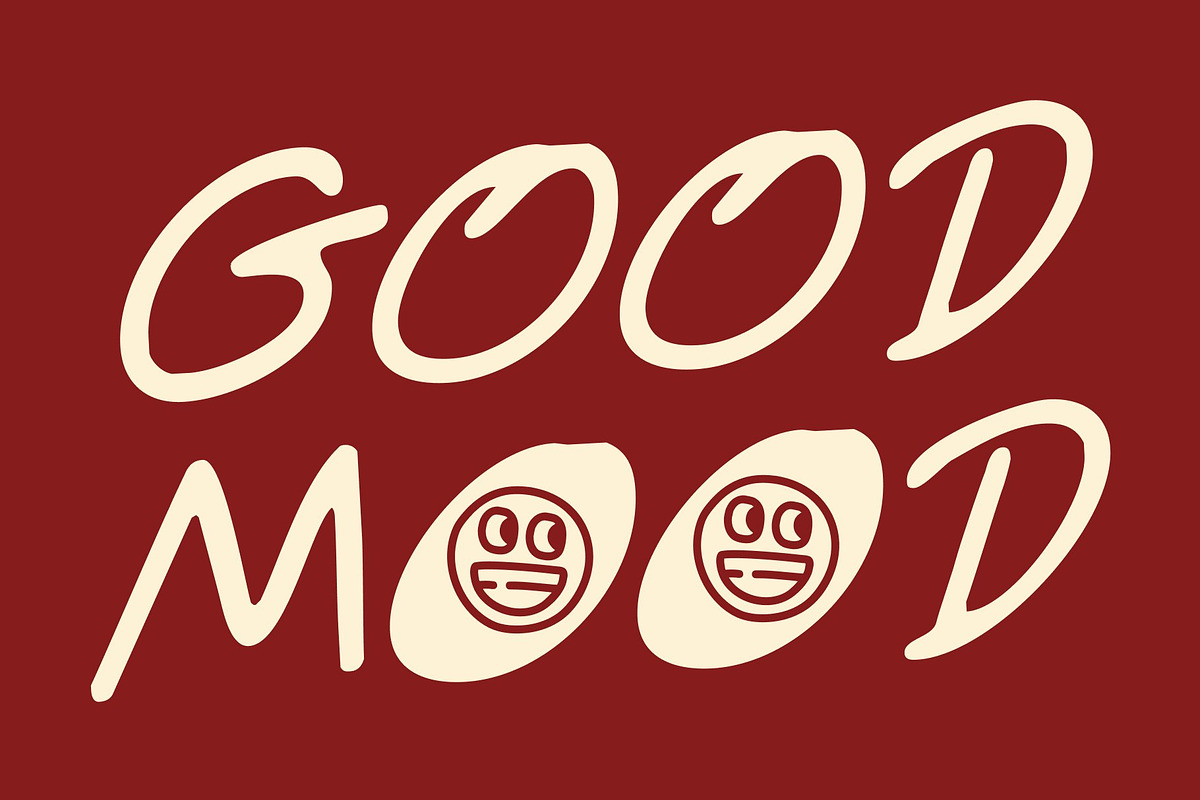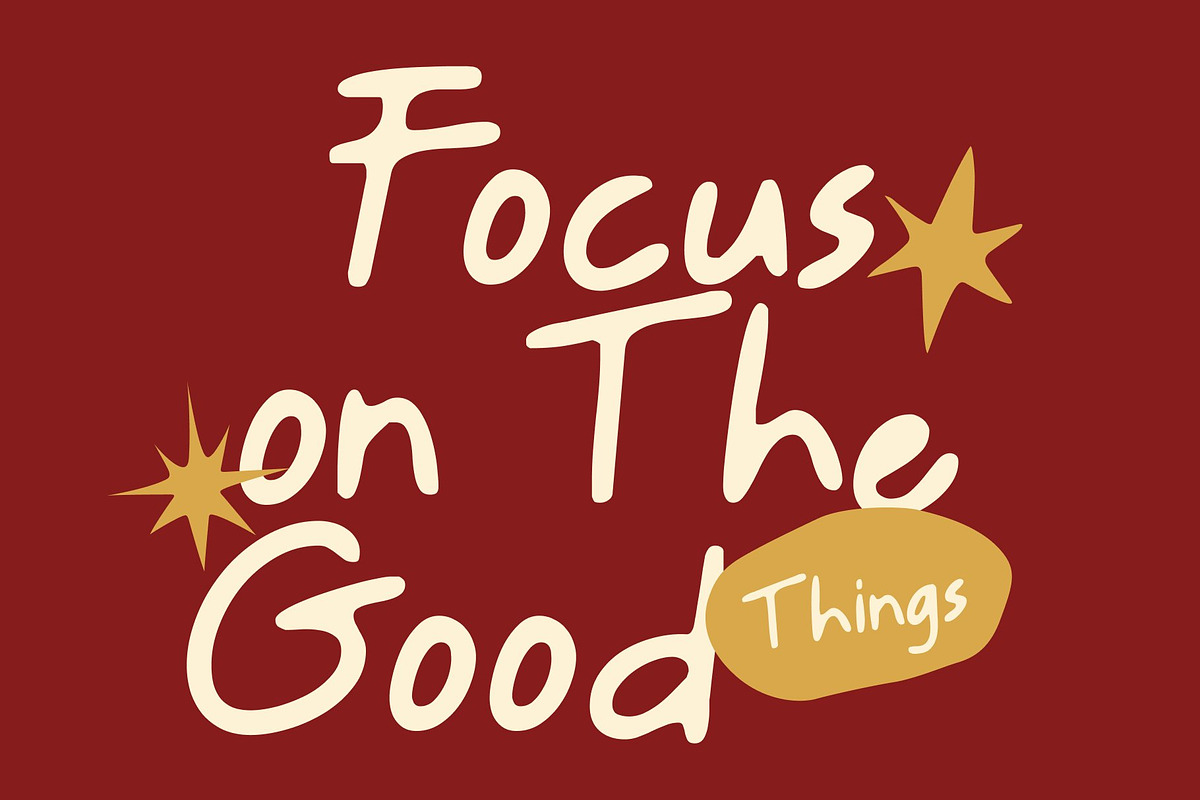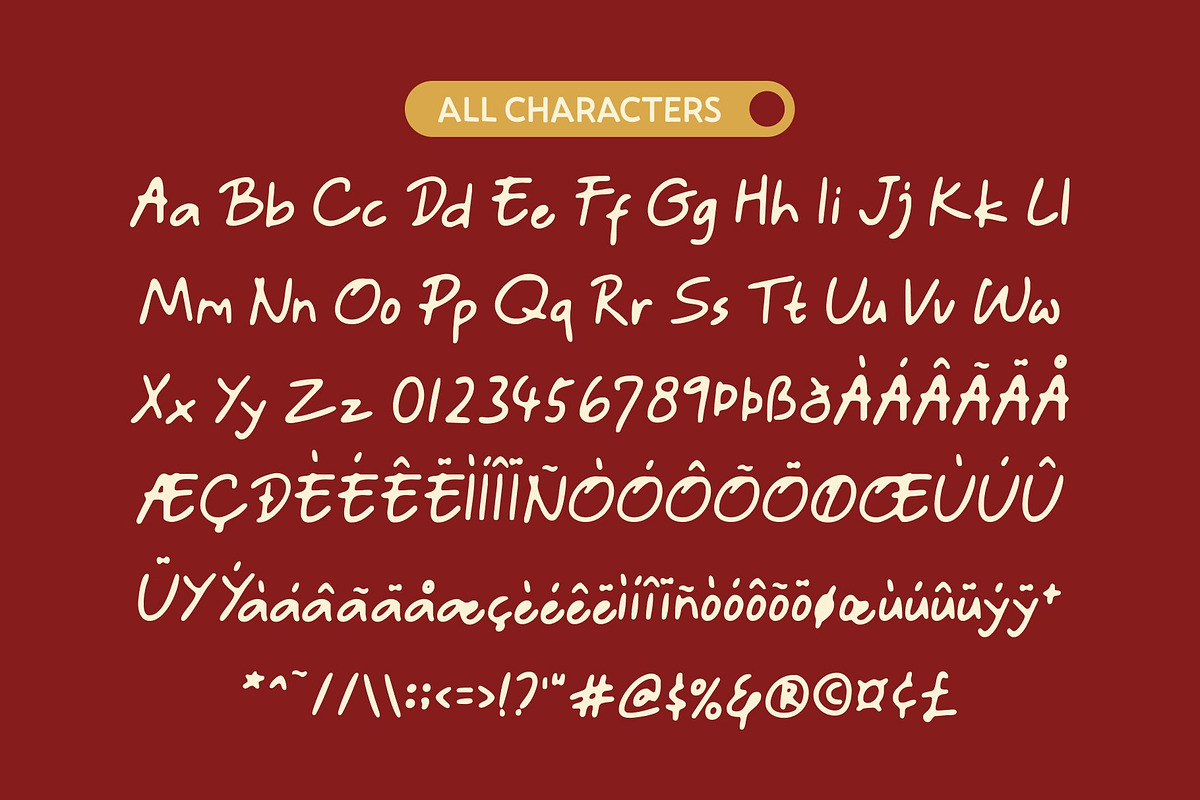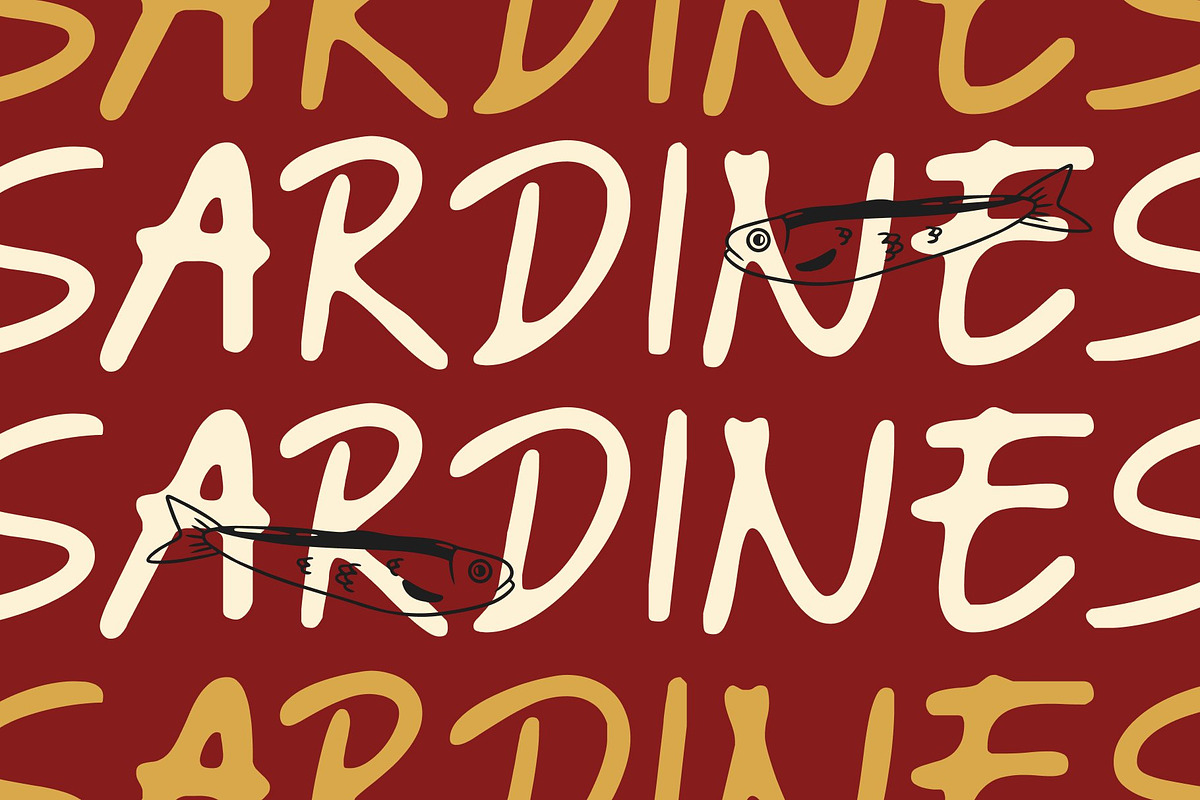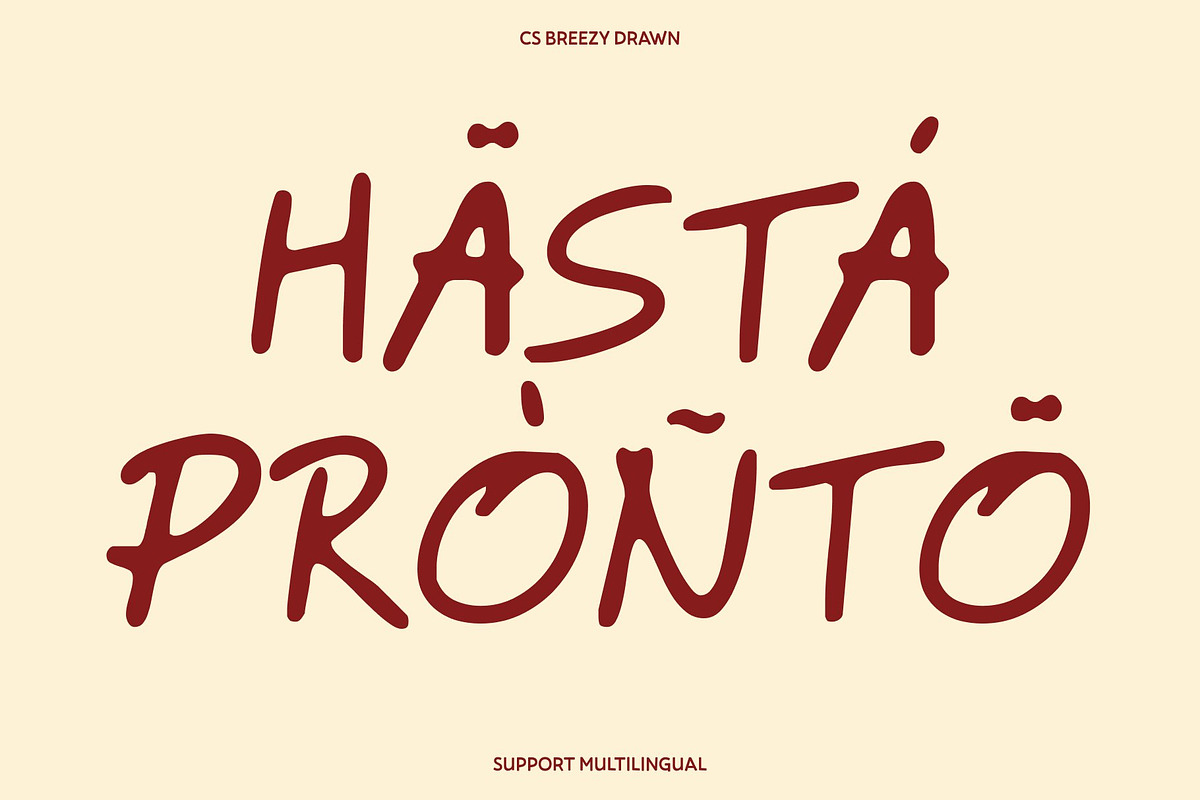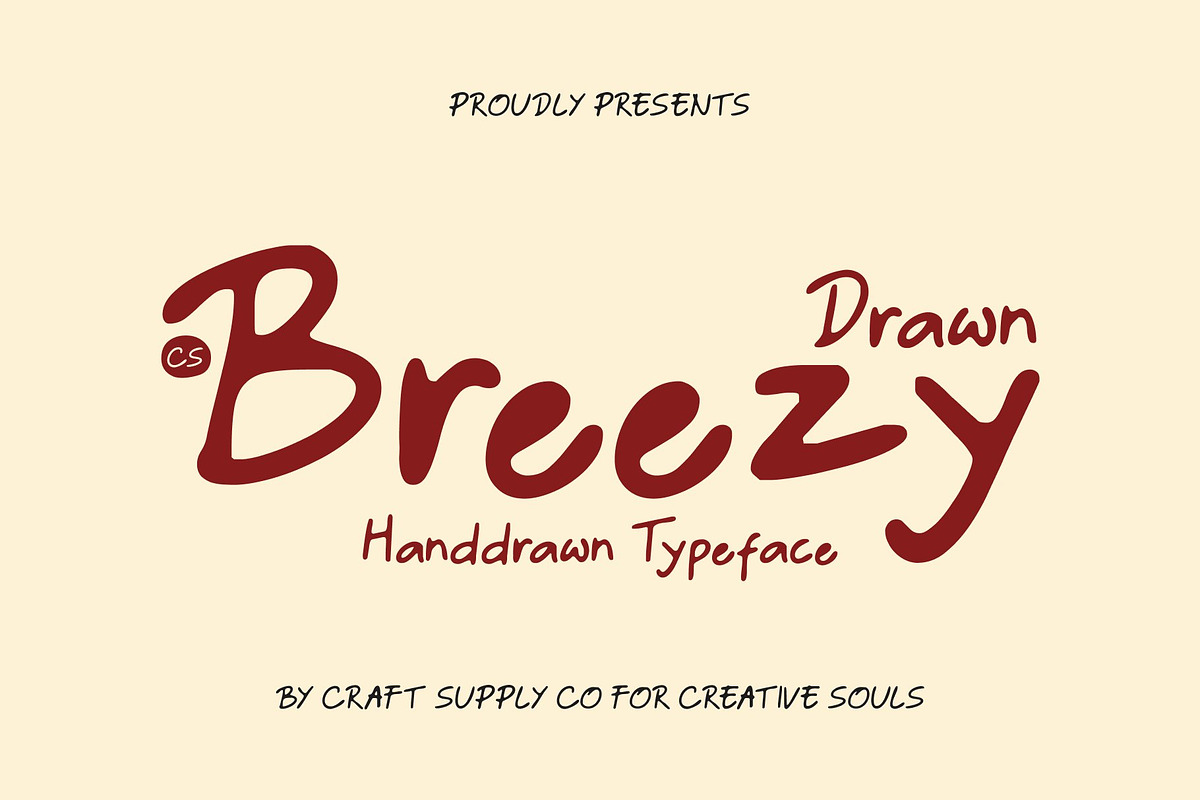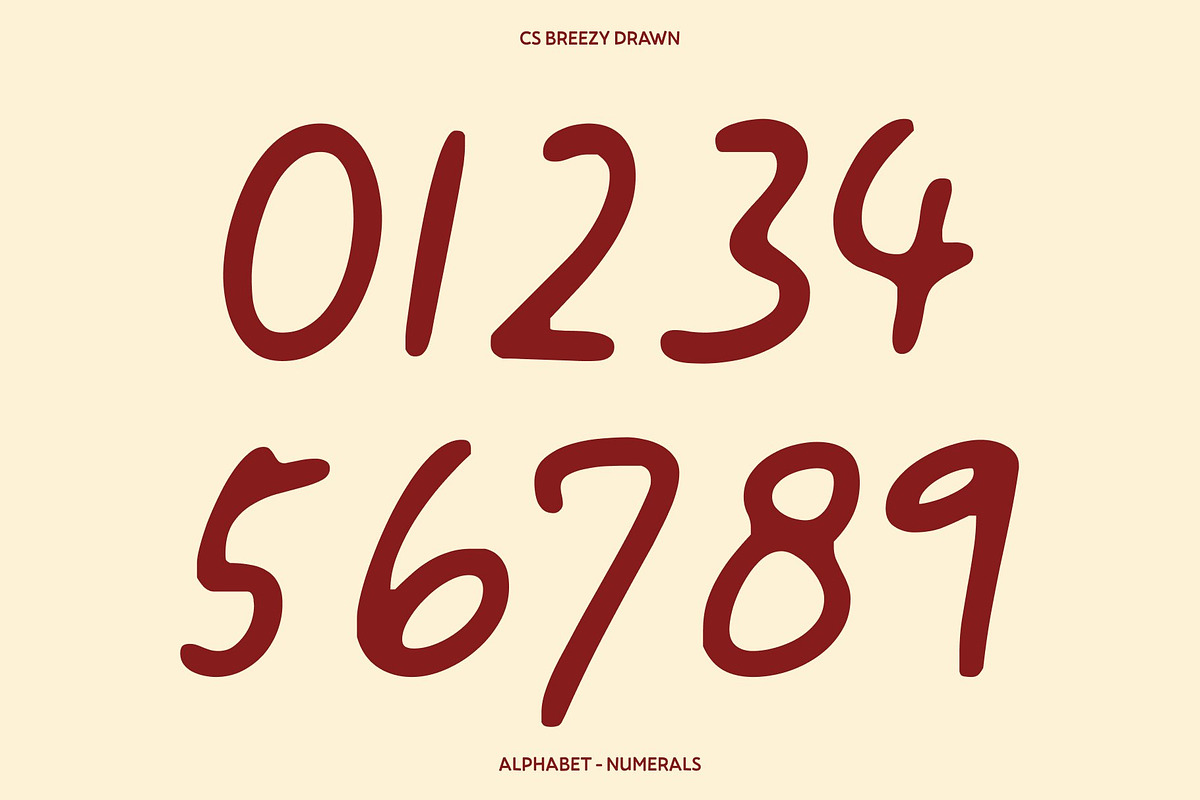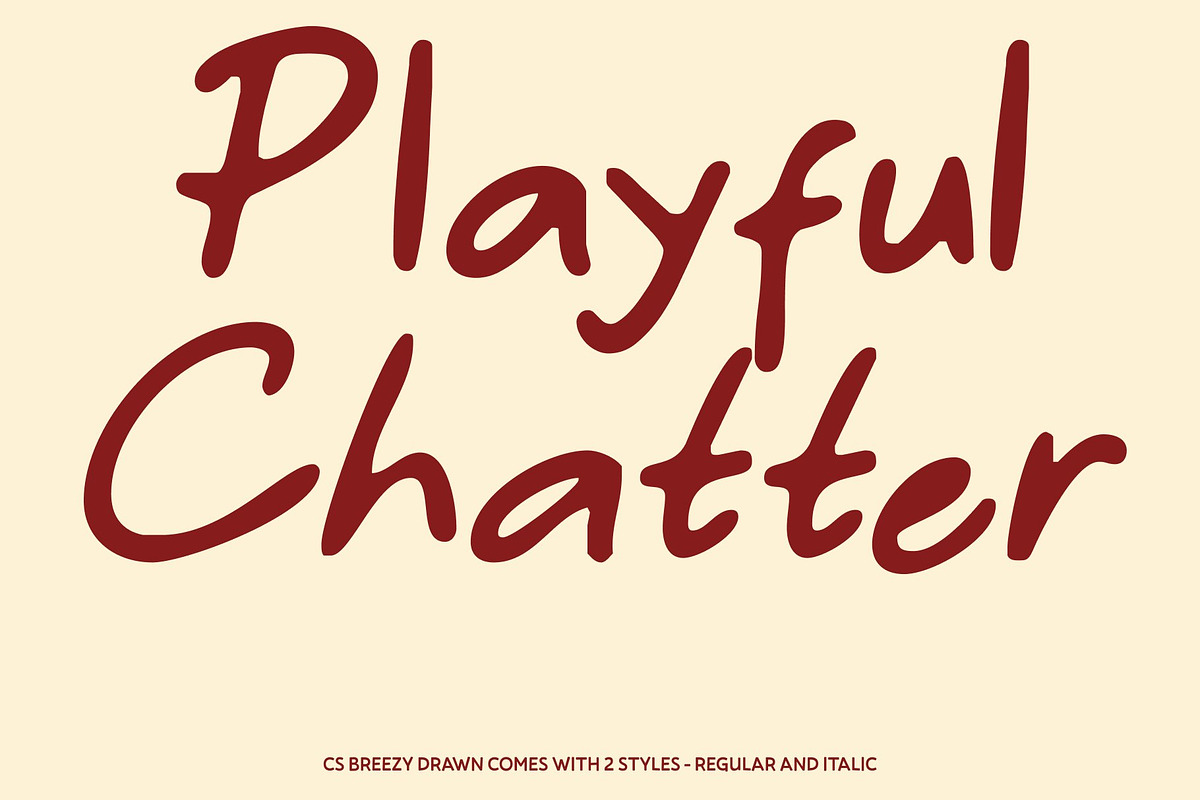
CS Breezy Drawn
CS Breezy Drawn – Fresh Energy with a Handwritten Touch
Handwritten Sans Serif with a Breezy, Lively Feel This is a bright handwritten sans serif font that captures the feeling of freshness and renewal. Its light, flowing strokes create an uplifting mood, while the drawn texture adds a handcrafted charm that feels natural and expressive. The overall character is cheerful, relaxed, and full of positive energy.
Clean Simplicity with Playful Warmth Built on a clear sans serif structure, this font maintains excellent readability while embracing the spontaneity of handwriting. The subtle irregularities and drawn details soften the clean forms, creating a perfect balance between modern clarity and friendly personality. This combination makes every line of text feel light, open, and inviting.
Spring-Inspired Rhythm and Joyful Character Inspired by the carefree spirit of spring, this font brings a sense of motion and optimism to your designs. Each letter flows with a gentle rhythm, evoking freshness, growth, and creativity. Its joyful tone makes it ideal for designs that aim to feel positive, natural, and emotionally engaging.
Perfect for Cards, Invitations, and Lifestyle Design From greeting cards and invitations to lifestyle branding, seasonal campaigns, and social media visuals, this font adapts beautifully across print and digital use. Its airy structure and drawn texture ensure your message feels friendly, fresh, and full of life, adding warmth and charm to every project.